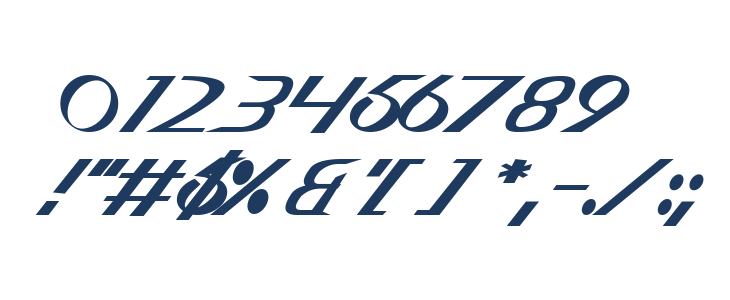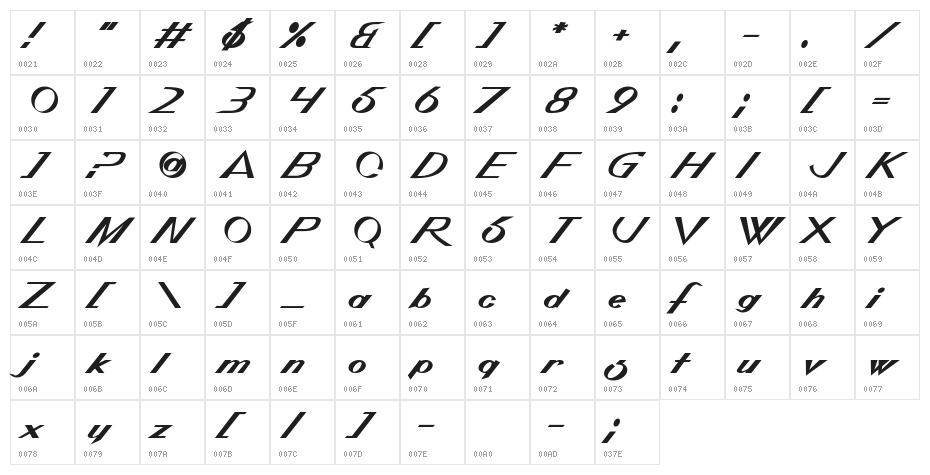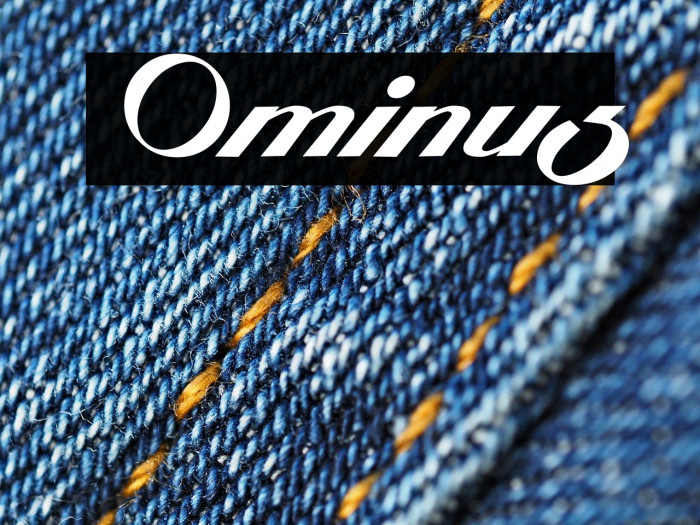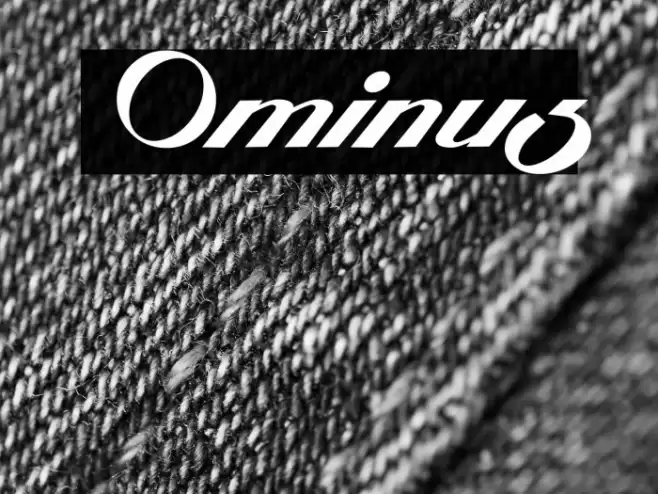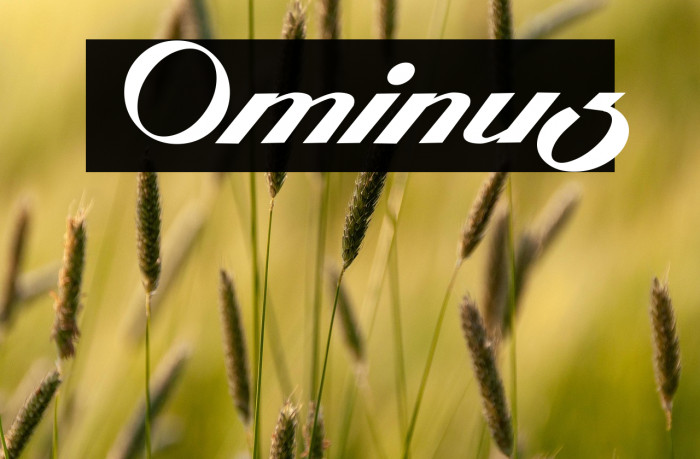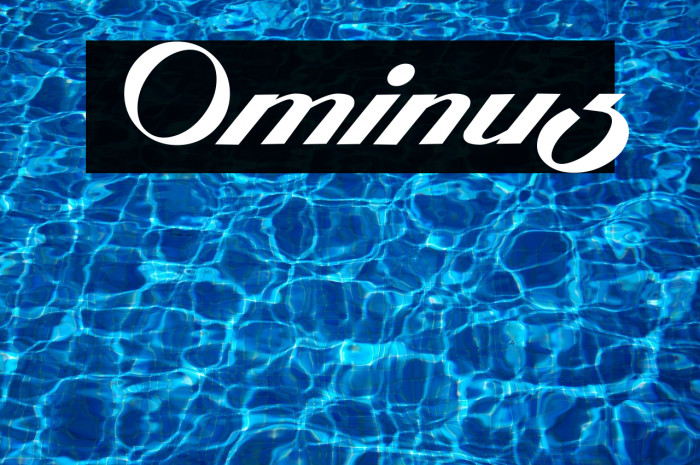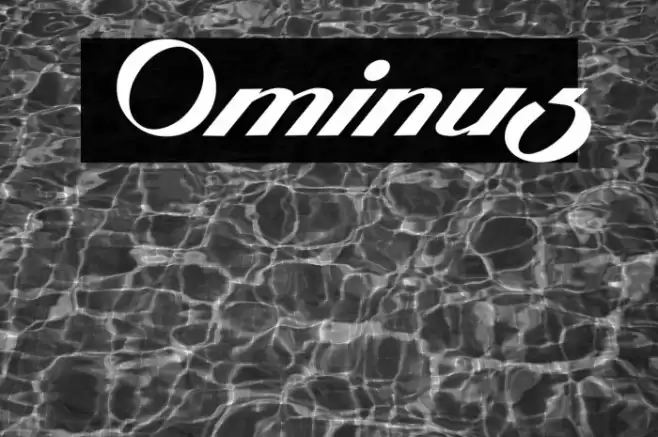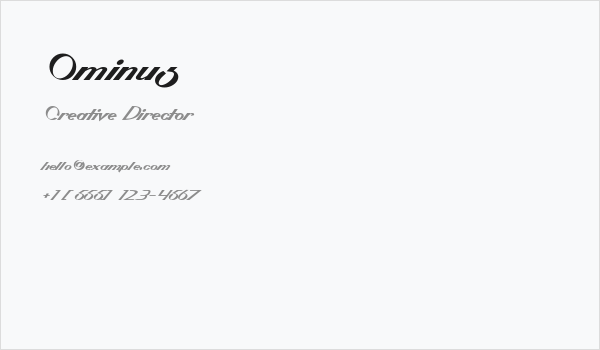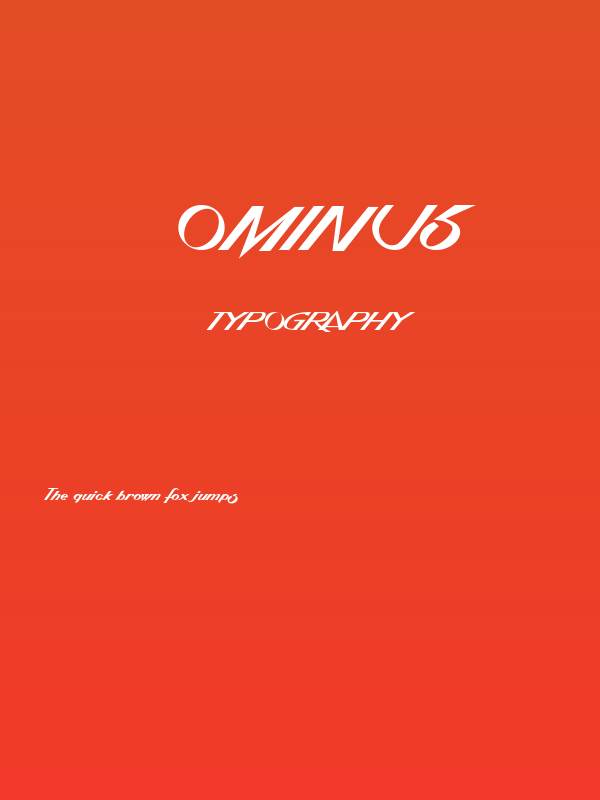
Ominus Font
Ominus Description
This font features a dynamic and angular design, characterized by sharp edges and a forward-leaning slant that conveys a sense of motion and energy. The uppercase letters are bold and striking, with unique cuts and curves that add a futuristic flair. The lowercase letters maintain this aesthetic, offering a cohesive look across the typeface. Numbers and special characters are designed with the same angular precision, ensuring consistency throughout. The overall style is modern and edgy, making it suitable for projects that require a bold statement.
| Proposed Projects | Ideal for branding, sports team logos, video game titles, and futuristic-themed designs. |